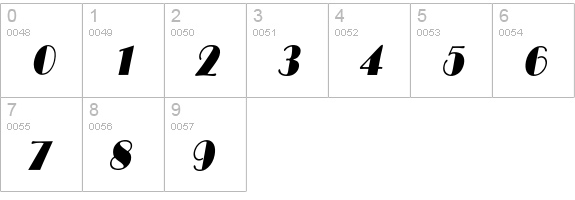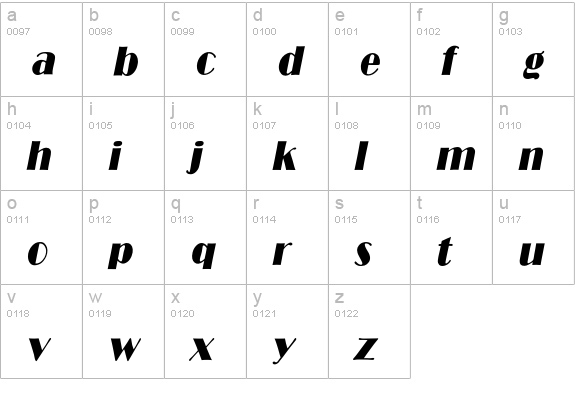
BroadwayCondItalic Font Details
BroadwayCondItalic is a stylish and elegant font that exudes sophistication and charm. Its sleek and slanted design adds a touch of modernity to any project, making it perfect for use in branding, advertisements, and editorial designs. The italicized form of this font gives it a unique and dynamic appearance, making it stand out from the crowd. The versatility of BroadwayCondItalic allows it to be used in a variety of applications, from fashion magazines to luxury branding. Its clean lines and graceful curves create a sense of movement and flow, while still maintaining a sense of professionalism and refinement. Best of all, BroadwayCondItalic is available for free download at FontsMarket.com, making it accessible to designers and creatives looking to elevate their projects with a touch of sophistication. Don't miss out on the opportunity to add this stunning font to your collection and bring your designs to the next level.